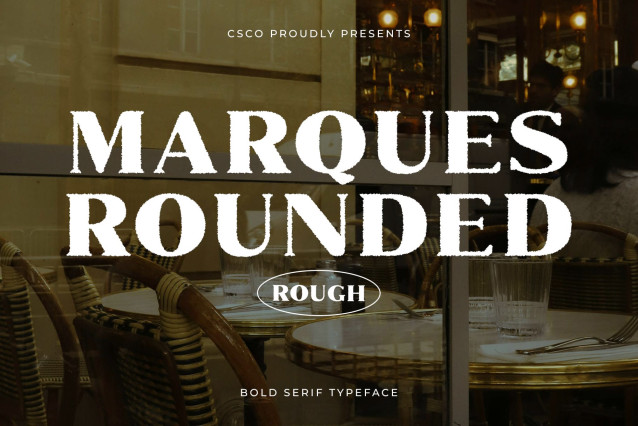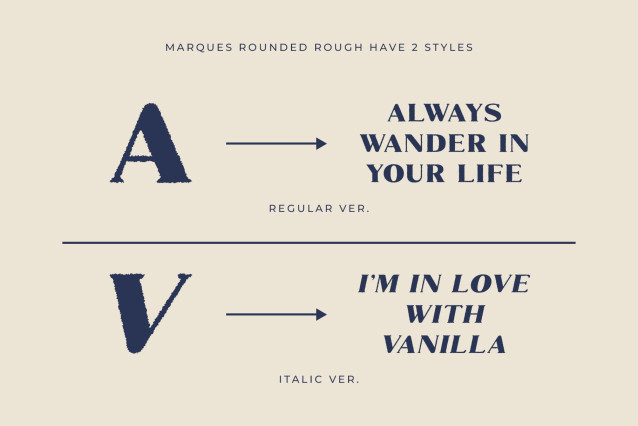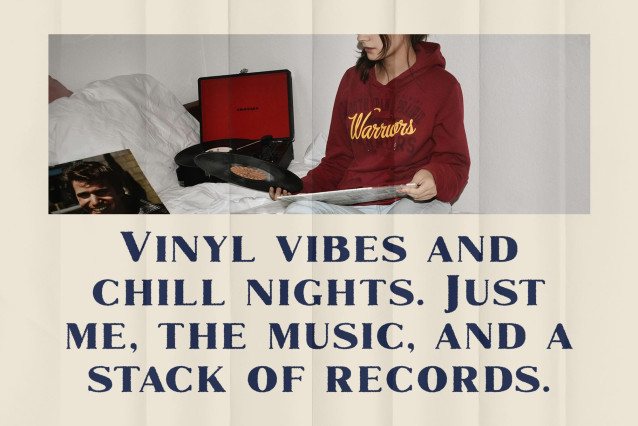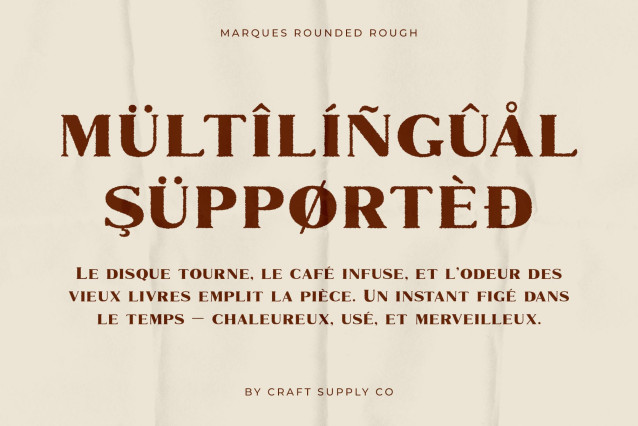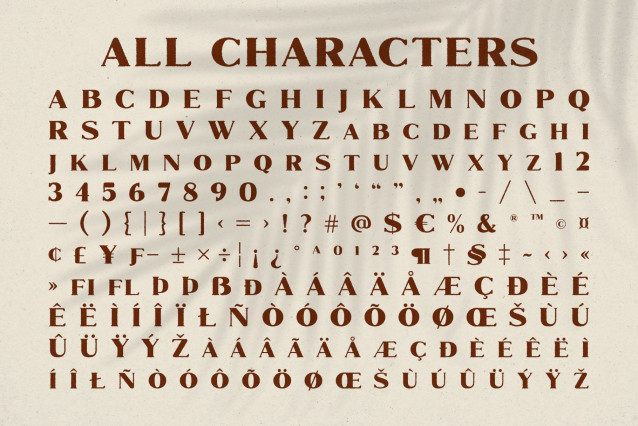
Marques Rounded Rough Font
Marques Rounded Rough Font is a modern serif font that blends classic design with bold, rounded shapes. Its unique structure combines the elegance of traditional serif fonts with a modern, approachable feel, offering a perfect balance of refinement and strength. The rounded edges soften the boldness of the design, giving it a contemporary touch without losing its sophisticated appeal.